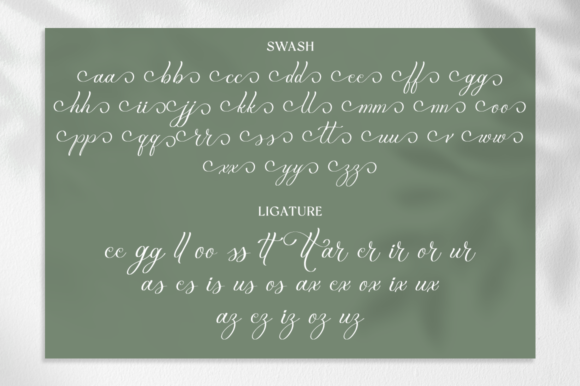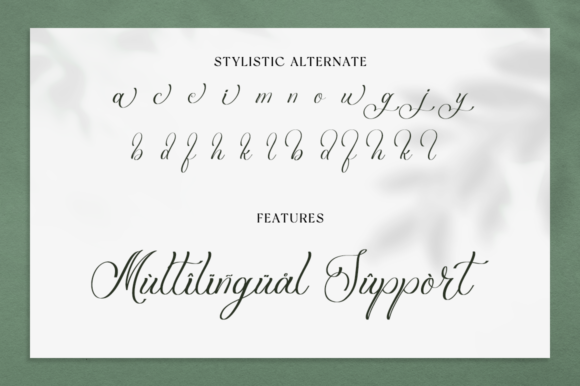
About Aurelyna Font
Aurelyna is an elegant handwritten font that feels equally charming and elegant. It looks stunning on wedding invitations, thank you cards, quotes, greeting cards, logos, business cards, and every other design which needs a customized touch. This font is PUA encoded, which means you can access all of the glyphs and swashes with ease!